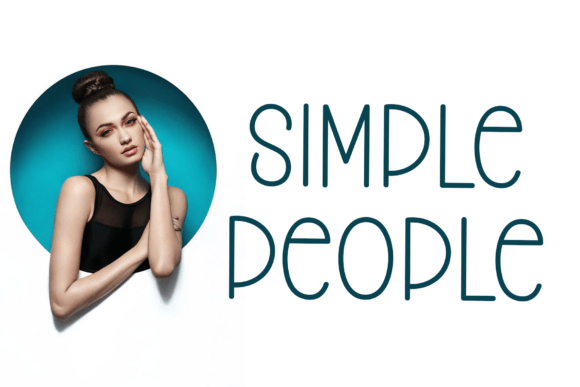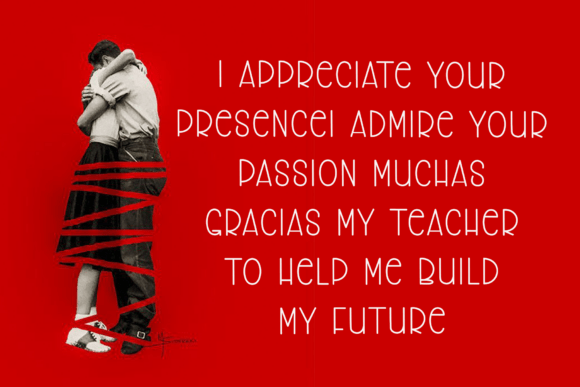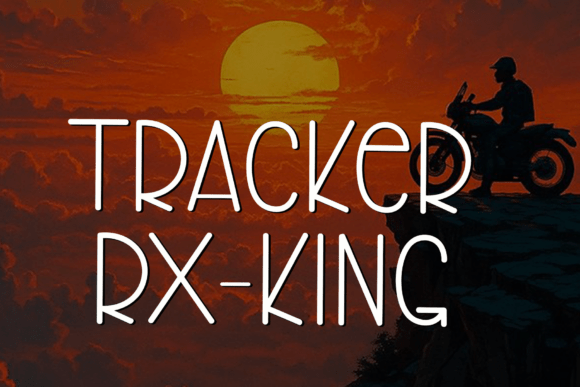
Introduction to Mondays Christmas Font
Enter the Mondays Christmas Font, a high-quality, expressive handwritten typeface that’s perfect for adding a touch of warmth and personality to your designs. Whether you’re creating custom greeting cards, personalized gifts, or strong titles, this font is sure to make your projects stand out. And the best part? You can download it for free, with a transparent background that makes it easy to use in any design resource.
For designers, the Mondays Christmas Font is a valuable resource that can elevate your work and make it truly special. With its dramatic, almost signature-like presence, this font is the perfect way to add a touch of charisma and authenticity to your designs. So why wait? Download the Mondays Christmas Font today and start creating something truly magical.
Mondays Christmas Font
- Unique festive design with a modern twist, perfect for holiday-themed creative projects.
- High-quality, scalable font with transparent background, ideal for use in digital design and print materials.
- Perfect design resource for creating invitations, greeting cards, and other holiday-themed materials.
- Designed to be highly legible, even in small sizes, making it perfect for use in various design contexts.
Honest Review: Mondays Christmas Font
I recently stumbled upon the Mondays Christmas Font while working on a holiday-themed creative project, and I must say it’s been a game-changer. This font is a fantastic design resource for anyone looking to add a touch of festive cheer to their designs.
Here are some things that work well:
- High-quality design: The Mondays Christmas Font is crisp, clean, and has a modern aesthetic that’s perfect for a variety of design projects.
- Transparent background: This allows for seamless integration with images and other design elements.
- Limited versatility: While the font is great for Christmas-themed projects, it may not be the best choice for more general design work.
- Not suitable for all screen resolutions: At larger sizes, the font can become a bit pixelated.
Overall, I’m really impressed with the Mondays Christmas Font, and I think it’s a great addition to any designer’s toolkit. With a little creativity, it can add a lot of holiday cheer to your designs.
Mondays Christmas Font
Tips for Getting the Most Out of Mondays Christmas Font
For the best results, use Mondays Christmas Font in conjunction with other design resources, such as images and graphics, to create a cohesive and visually appealing design. Also, be sure to adjust the font size and color to fit your design needs.
Mondays Christmas Font is a versatile design resource that can be used in a variety of creative projects, including holiday cards, social media posts, and party invitations. It is also a great resource for designers who want to add a touch of festive cheer to their designs without sacrificing quality.
By incorporating Mondays Christmas Font into your design, you’ll be able to add a touch of sophistication and whimsy to your project, making it truly stand out from the crowd. So why wait? Download Mondays Christmas Font today and discover the magic for yourself. With its seamless integration and endless possibilities, you’ll be amazed at how it can transform your design and take it to the next level.